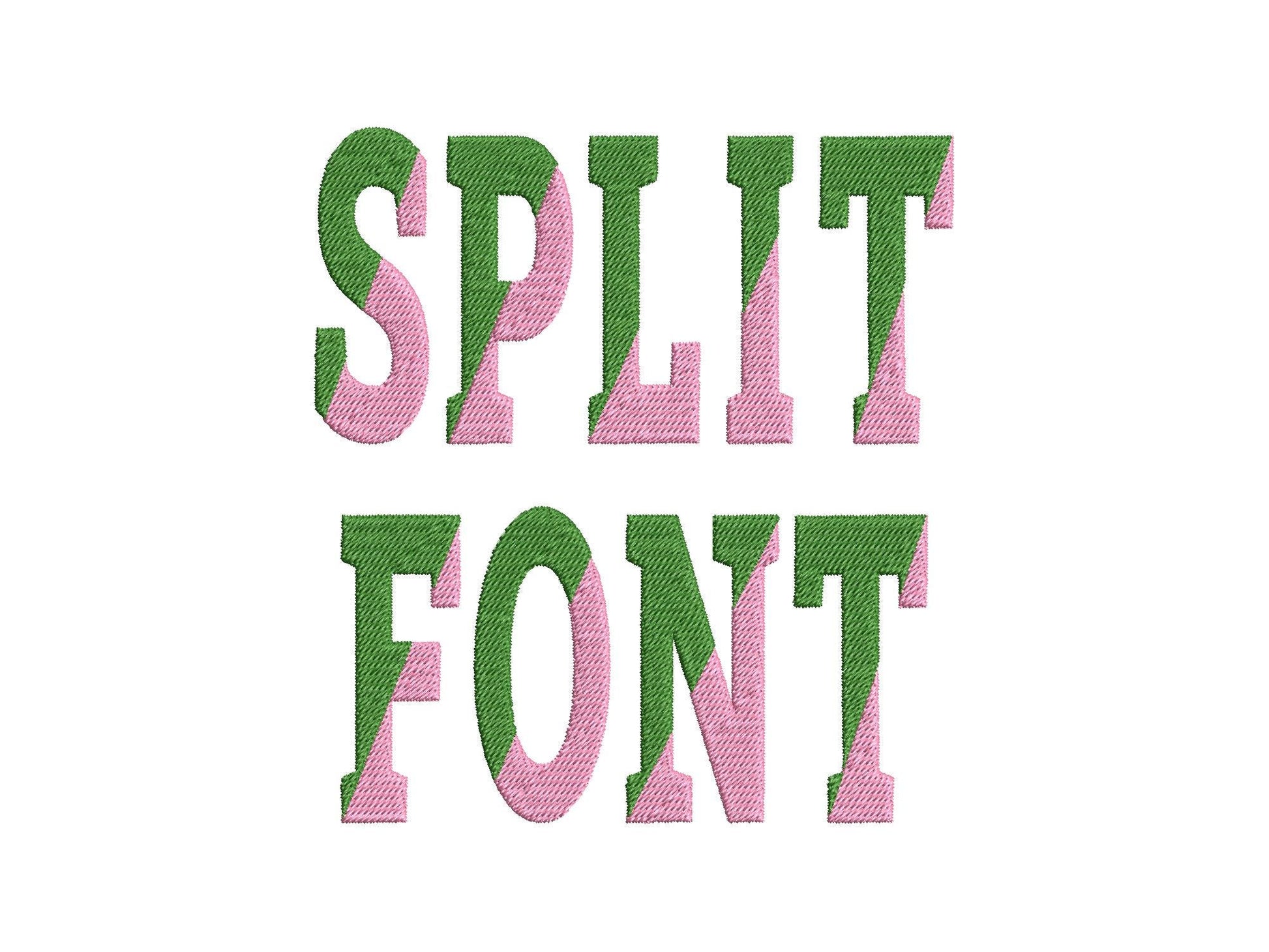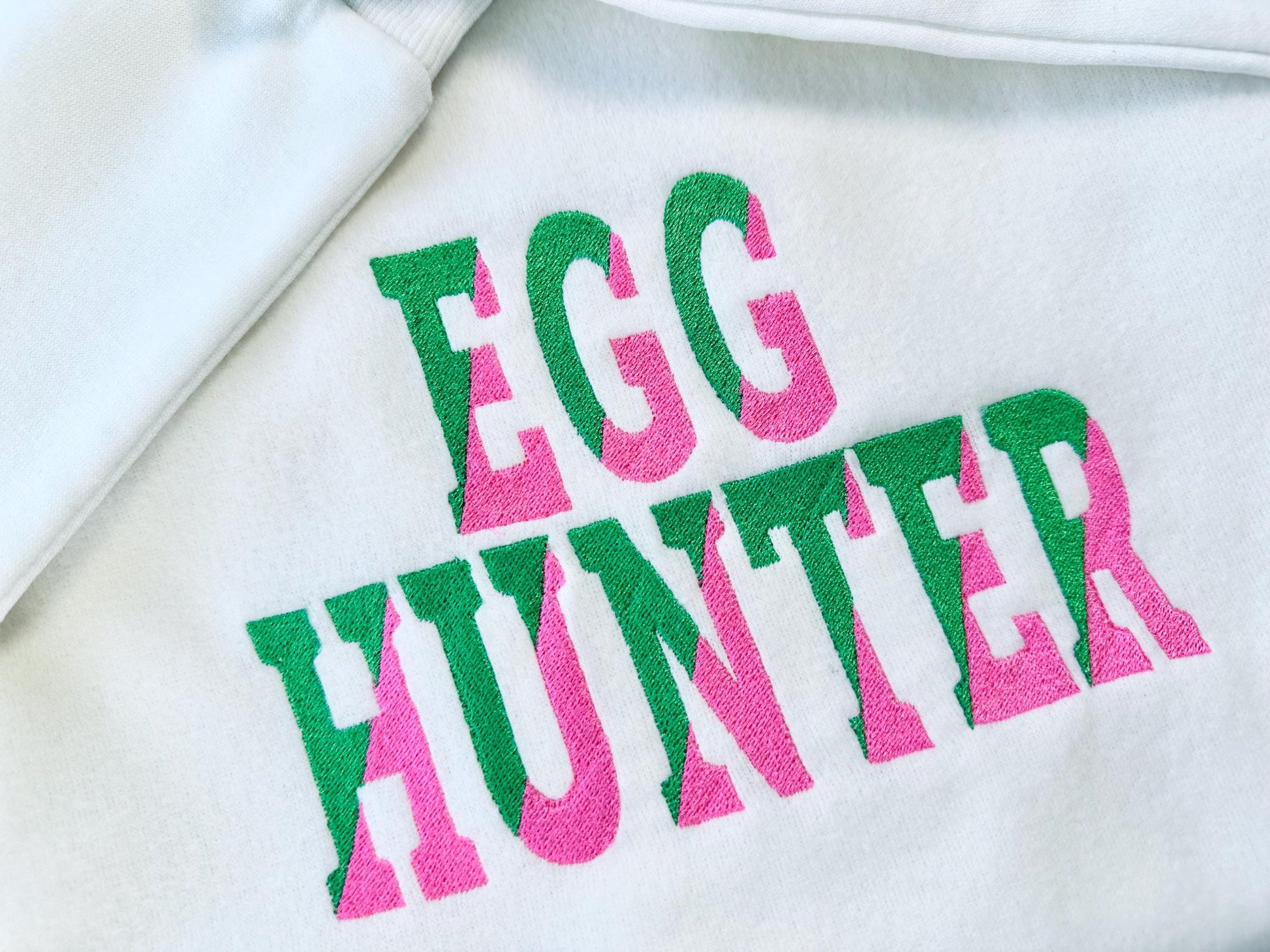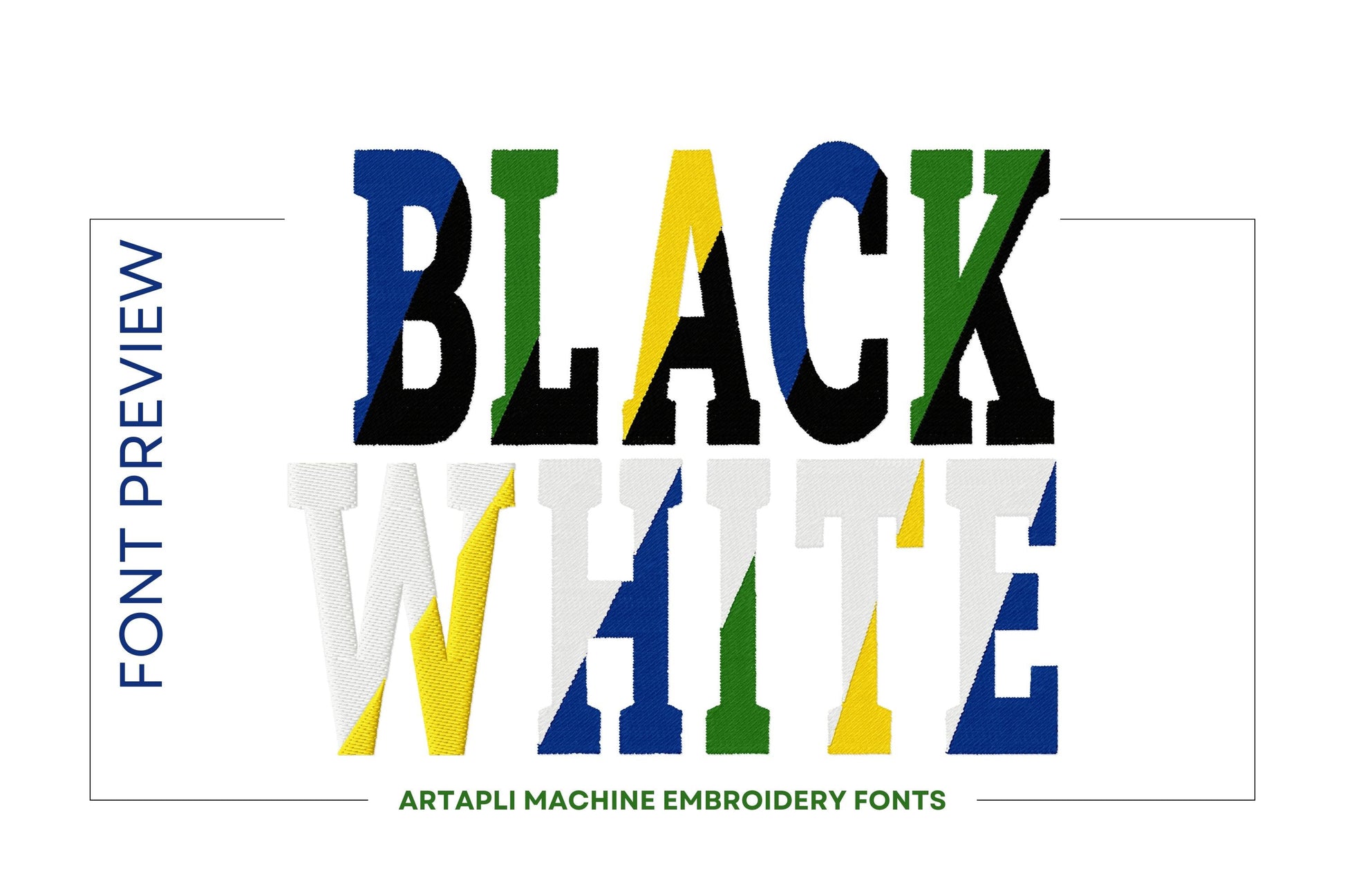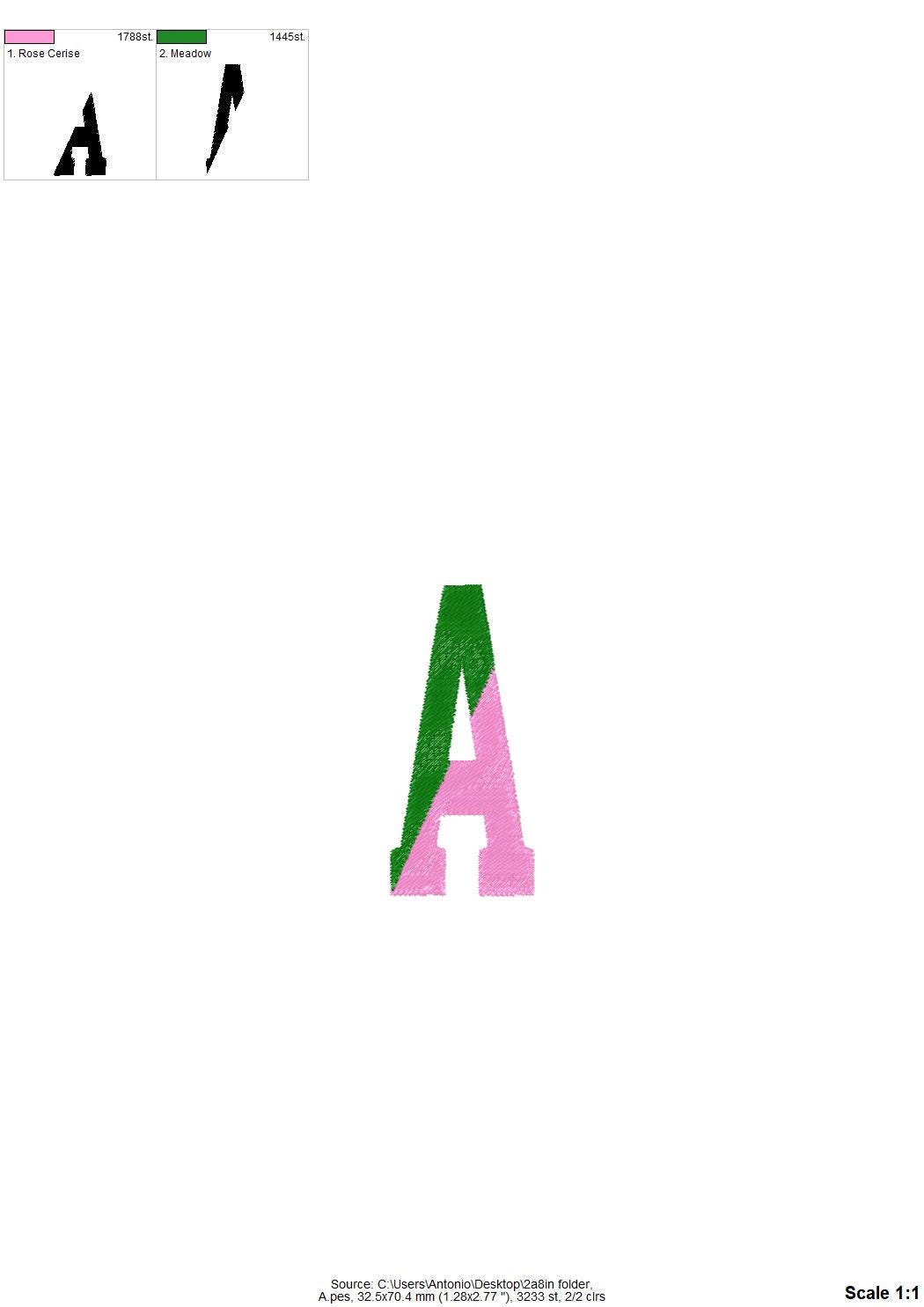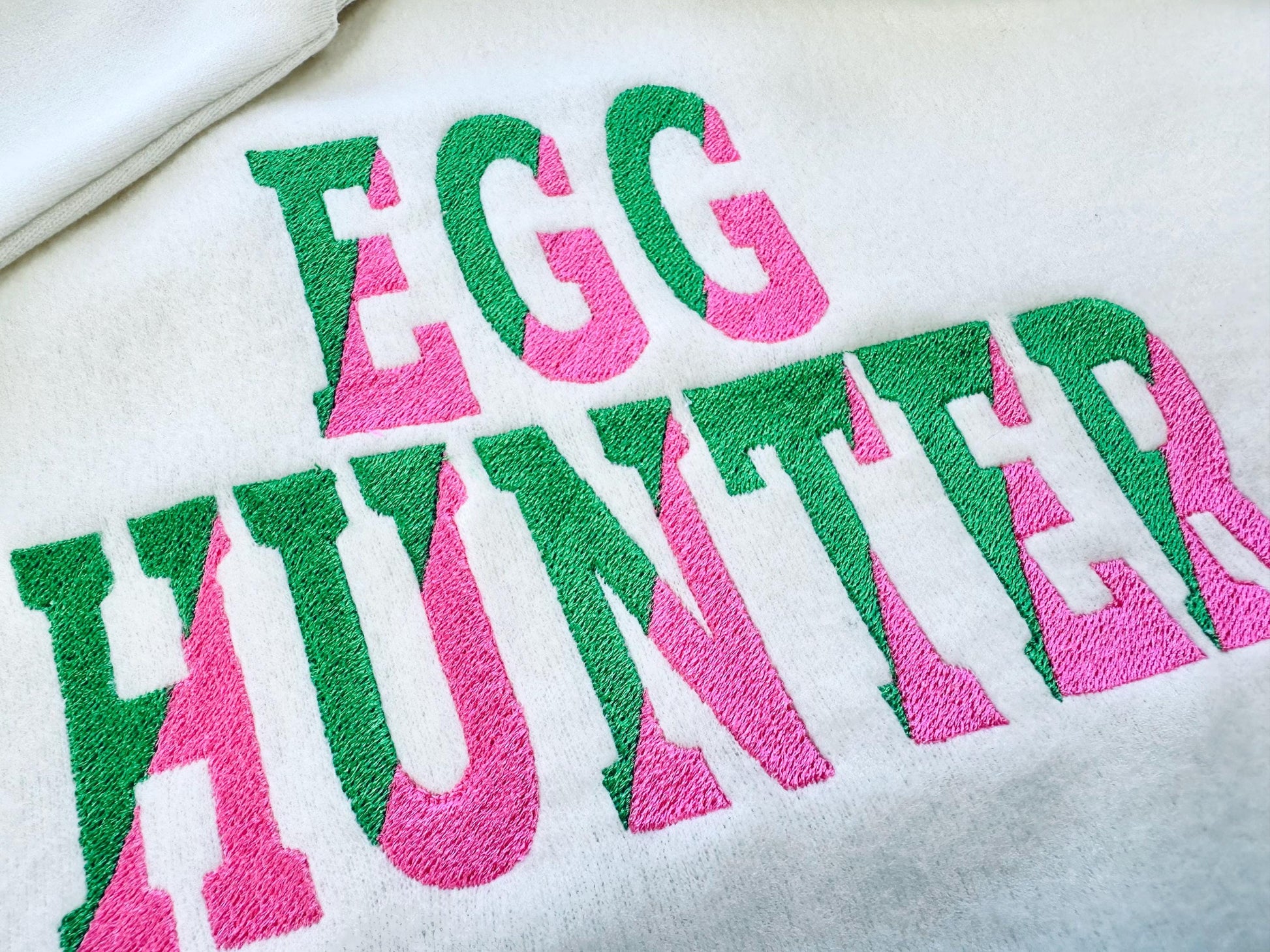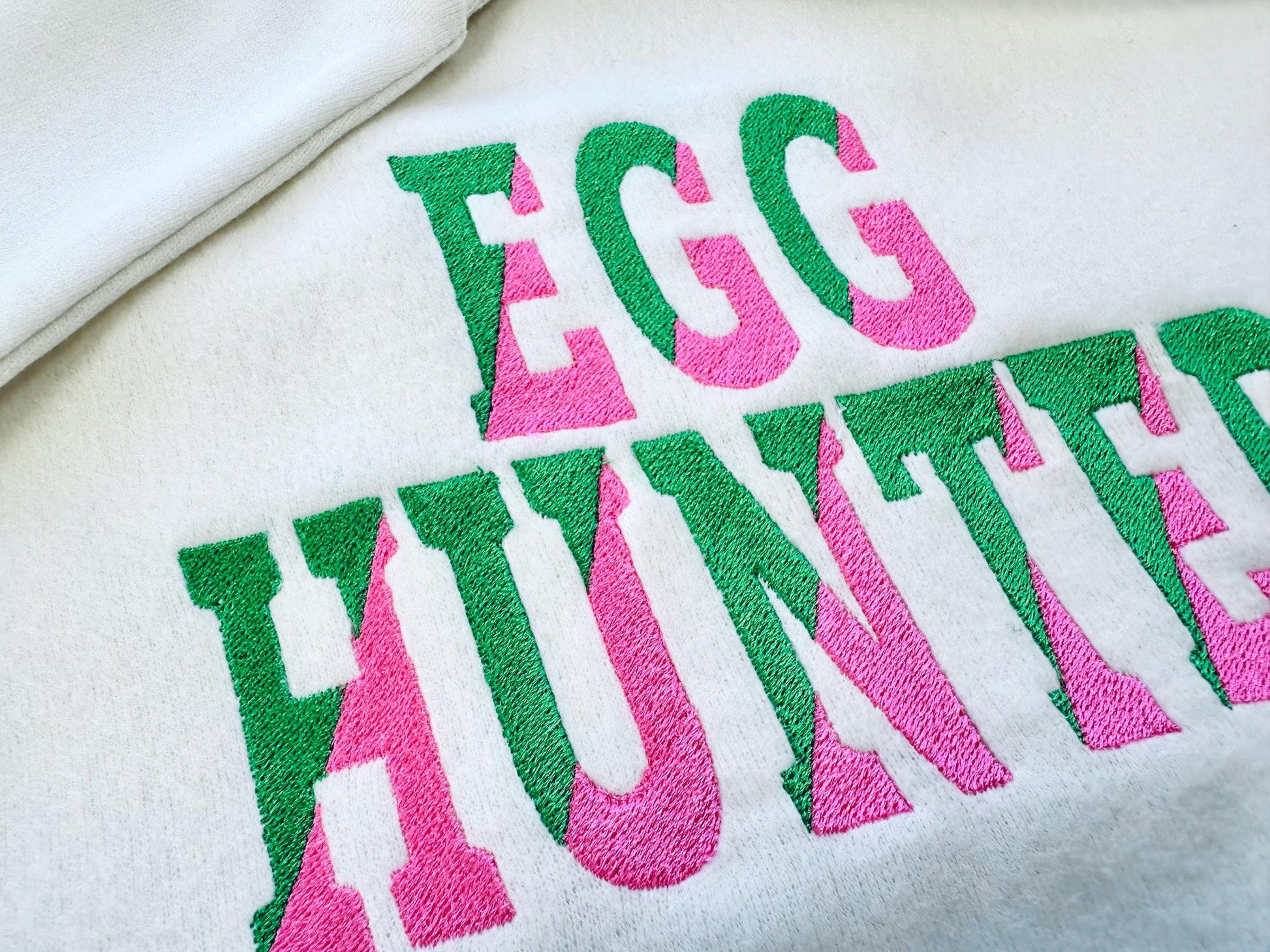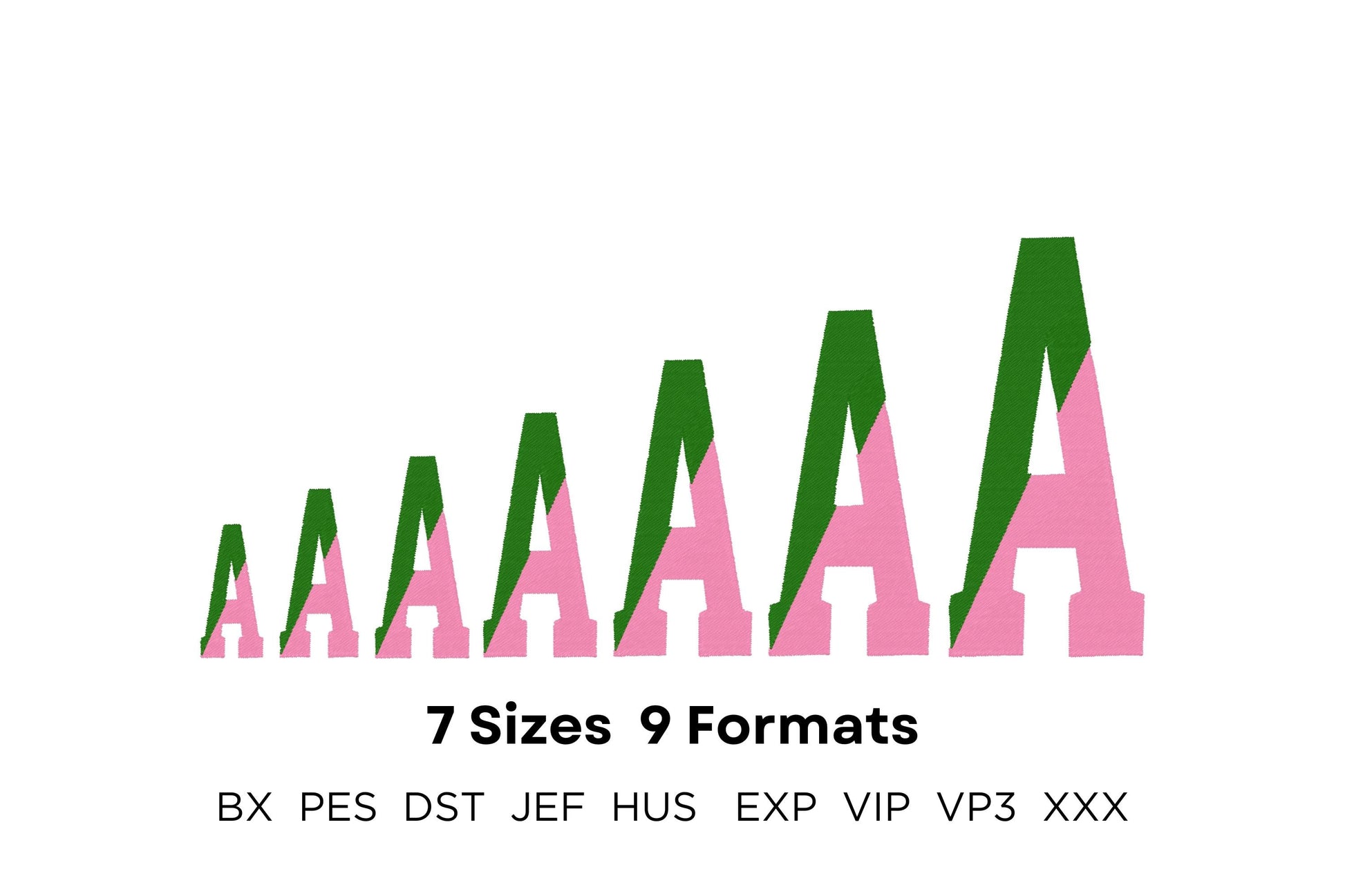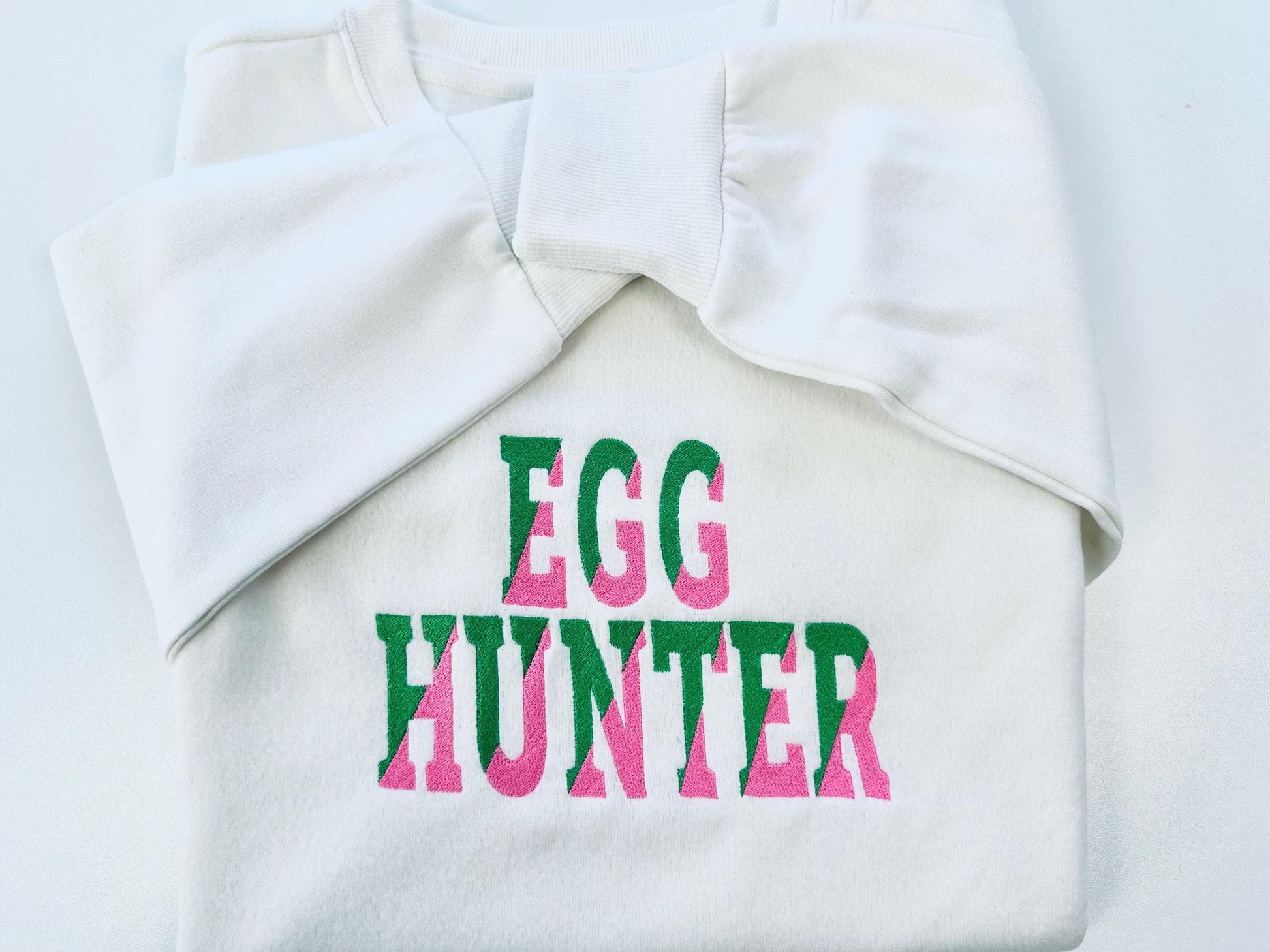
Or click to open the linkA narrow varsity collegiate font split on the diagonal into two colors of fill stitch. Sporty for team shirts, jackets, caps and school spirit wear.